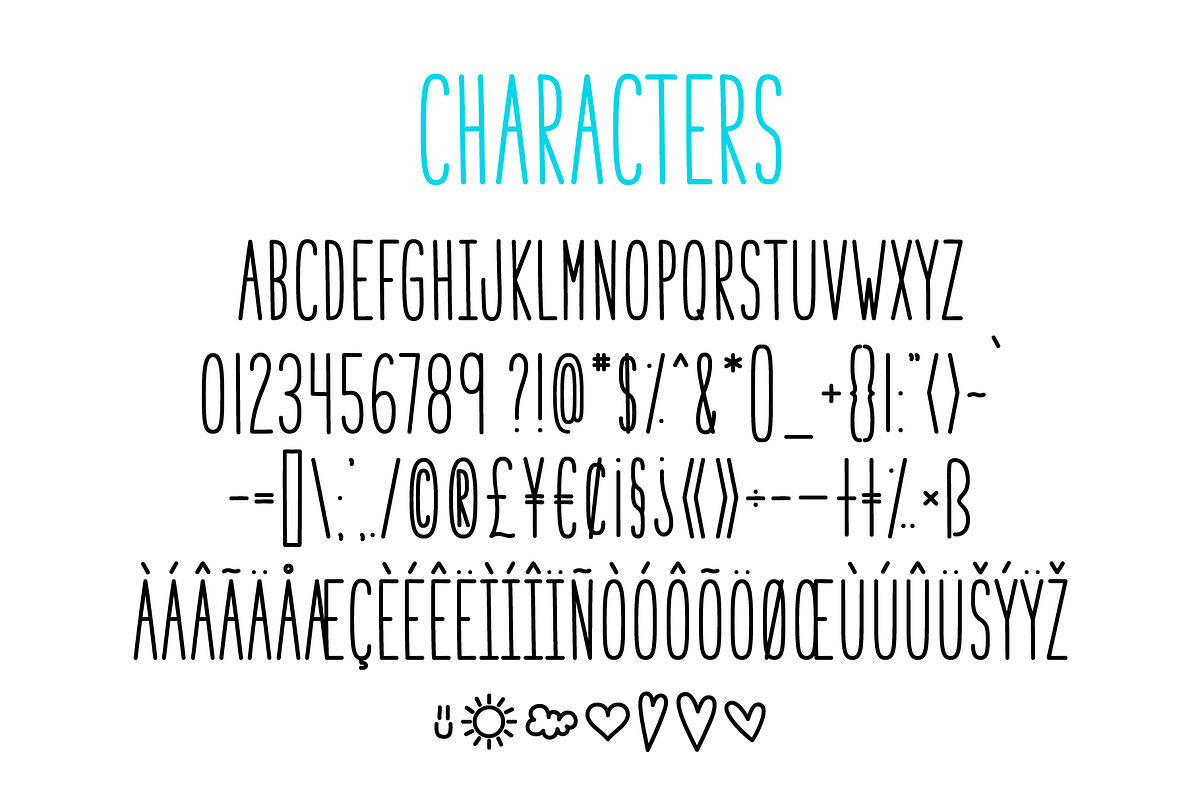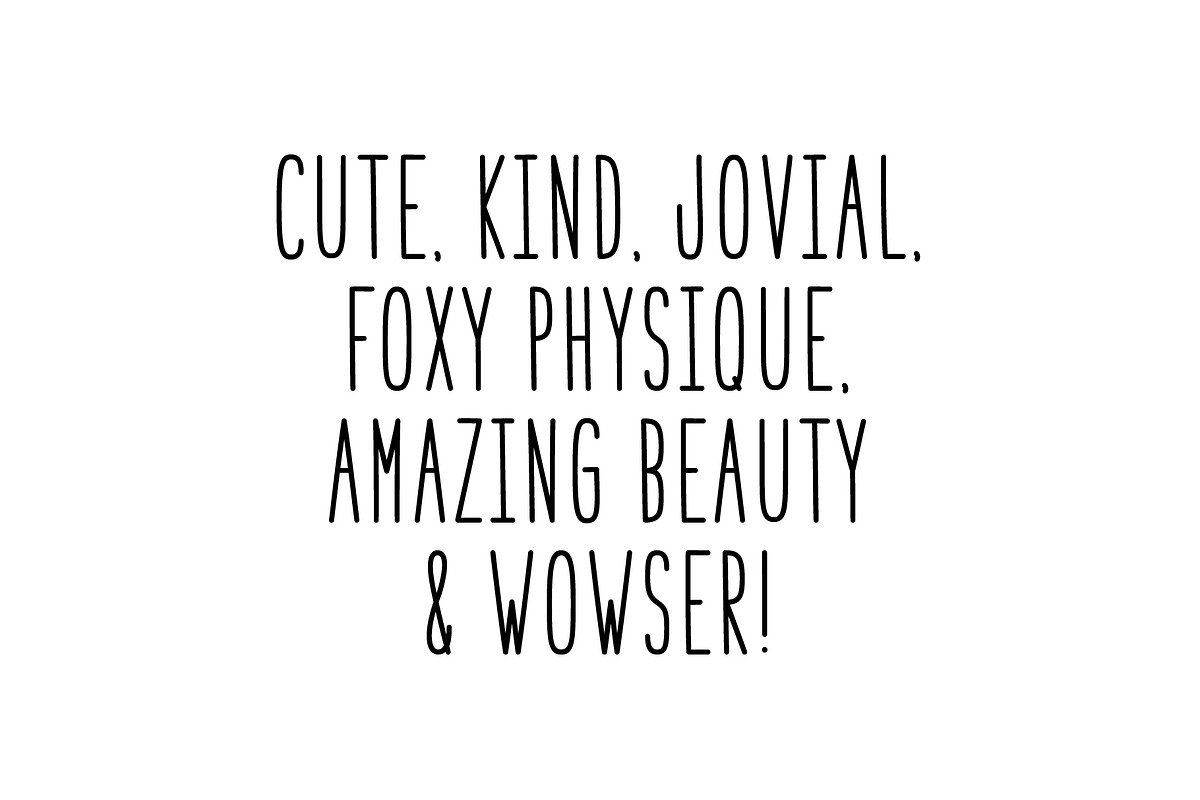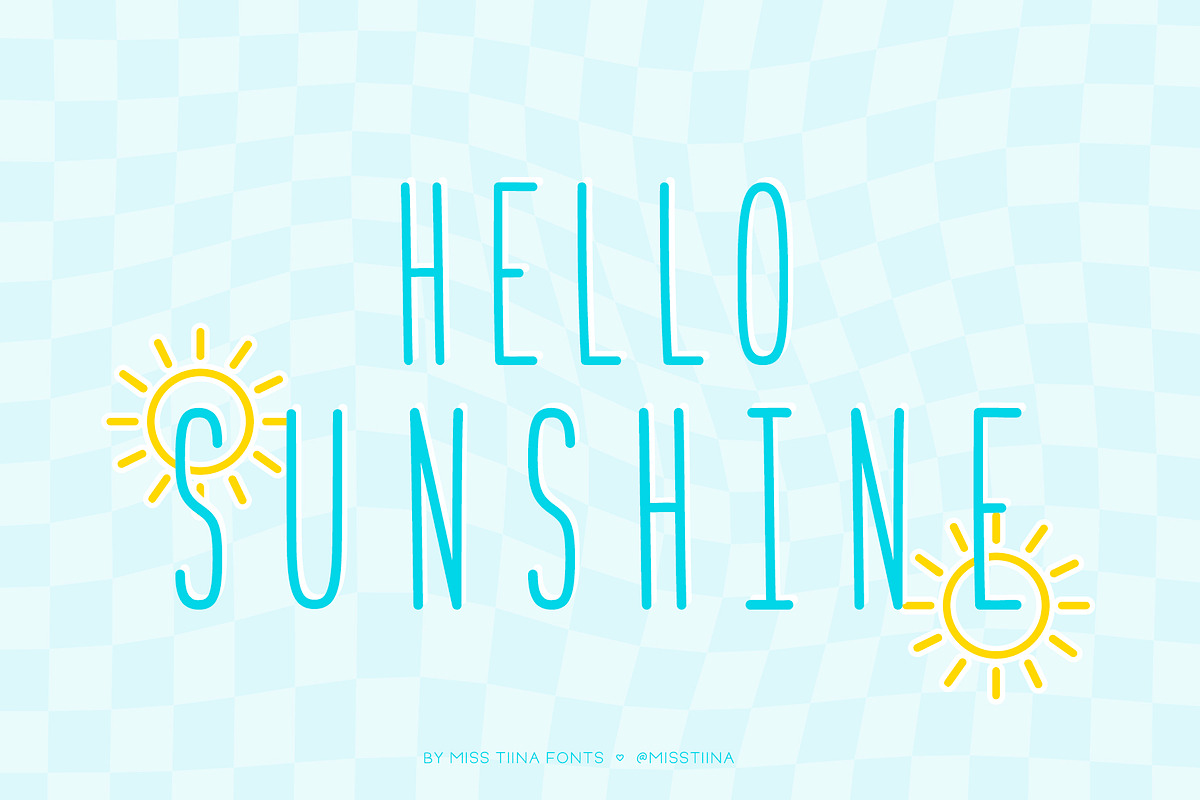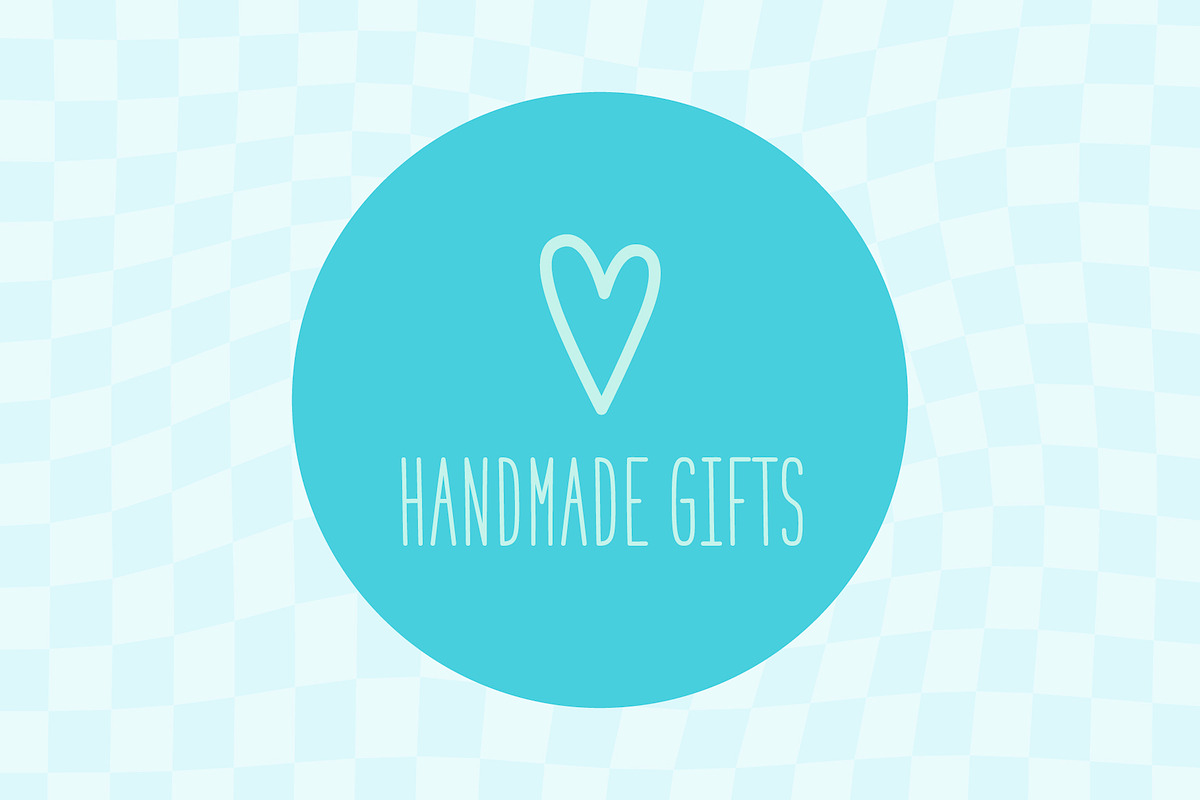
Hello Sunshine Font
Hello Sunshine is an adorable handwritten display font, making it ideal for a variety of modern projects. Also included are 7 adorable doodles!
UPDATED 4.12.23 - This font, originally from 2012 now has perfected lines, better kerning and multilingual characters!